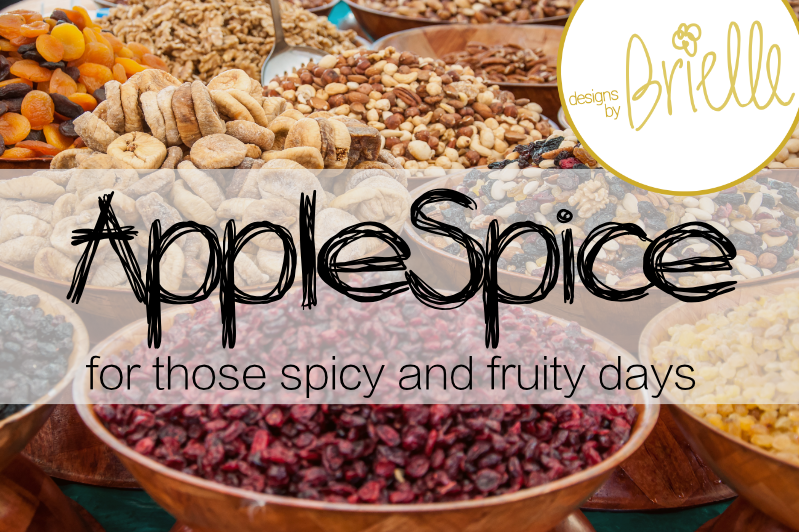
Apple is a fun, hand-drawn, sketchy font. Free for personal use. For commercial licensing, please see http://designsbybrielle.com/commercial-use-info/. |